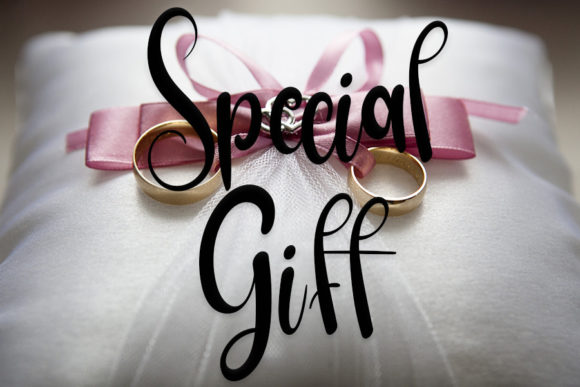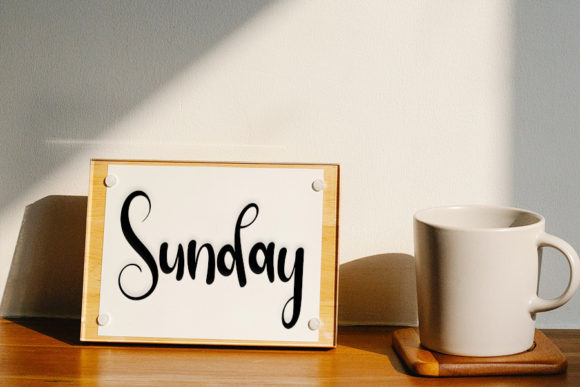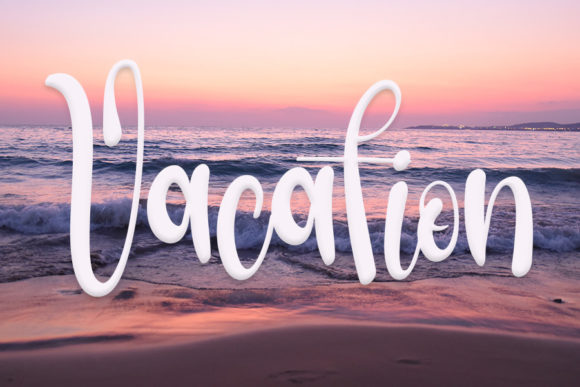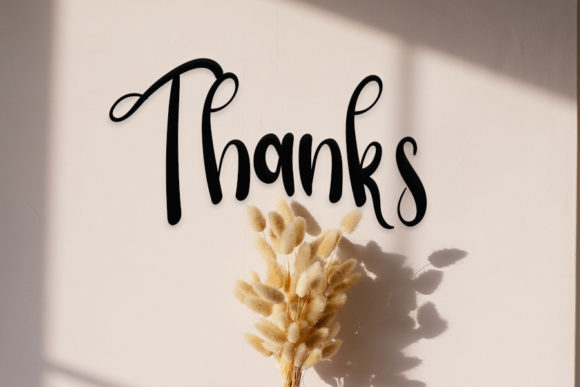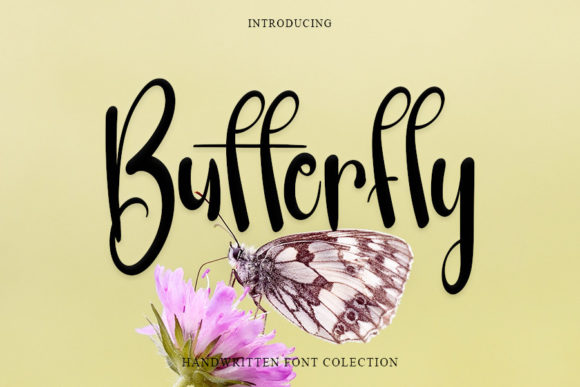
Introducing Butterfly Font: The Sweet and Delicate Handwritten Font for Romantic Designs
Are you a designer or crafter looking for a font that can add a touch of romance and whimsy to your designs? Look no further than Butterfly Font! This sweet and delicate handwritten font is perfect for creating beautiful wedding invitations, cards, and other designs that require a personal and loving touch.
What Makes Butterfly Font So Special?
Butterfly Font is a dainty and joyful font that is sure to capture the hearts of anyone who sees it. Its delicate and cursive strokes give it a romantic and feminine feel, making it ideal for designs that require a touch of elegance and sophistication. Whether you’re creating wedding invitations, Valentine’s Day cards, or simply want to add a personal touch to your designs, Butterfly Font is the perfect choice.
Why Choose Butterfly Font for Your Designs?
There are many reasons why Butterfly Font stands out from other fonts. Here are just a few:
- Romantic and Whimsical: Butterfly Font has a romantic and whimsical feel that is perfect for designs that require a personal touch. Its delicate strokes and cursive letters make it ideal for creating beautiful wedding invitations, cards, and other designs.
- Versatile: Butterfly Font is a versatile font that can be used for a variety of designs. Whether you’re creating wedding invitations, cards, or other designs, this font is sure to add a touch of elegance and sophistication.
- Easy to Read: Despite its delicate strokes, Butterfly Font is easy to read and understand. This makes it perfect for designs that require a lot of text, such as wedding invitations and cards.
- Unique: Butterfly Font is a unique font that is sure to stand out from other fonts. Its delicate and cursive strokes make it a one-of-a-kind font that will add a touch of personality to your designs.
How to Use Butterfly Font in Your Designs
Using Butterfly Font in your designs is easy! Here are a few tips:
- Pair it with Other Fonts: Butterfly Font pairs well with other fonts, such as sans-serif fonts. Try pairing it with a bold font to create a beautiful contrast.
- Use it for Headings and Titles: Butterfly Font is perfect for headings and titles. Use it to add a touch of elegance and sophistication to your designs.
- Add it to Your Digital Designs: Butterfly Font is perfect for digital designs, such as social media graphics and blog posts. Use it to add a touch of personality to your digital designs.
- Use it for Print Designs: Butterfly Font is also perfect for print designs, such as wedding invitations and cards. Use it to create beautiful and elegant designs that will impress your clients.
Who Can Benefit from Using Butterfly Font?
Butterfly Font is perfect for designers and crafters who want to add a touch of romance and whimsy to their designs. Here are a few examples of who can benefit from using this font:
- Wedding Designers: Wedding designers can use Butterfly Font to create beautiful wedding invitations, cards, and other designs that require a romantic and elegant touch.
- Card Makers: Card makers can use Butterfly Font to create beautiful and personalized cards for special occasions, such as Valentine’s Day and Mother’s Day.
- Graphic Designers: Graphic designers can use Butterfly Font to add a touch of personality to their designs, such as social media graphics and blog posts.
- Crafters: Crafters can use Butterfly Font to create beautiful and personalized designs, such as scrapbook pages and journal entries.
In conclusion, Butterfly Font is a sweet and delicate handwritten font that is perfect for designers and crafters who want to add a touch of romance and whimsy to their designs. Its delicate and cursive strokes make it ideal for creating beautiful wedding invitations, cards, and other designs that require a personal and loving touch. With its versatility, ease of use, and unique style, Butterfly Font is sure to become a favorite font among designers and crafters.